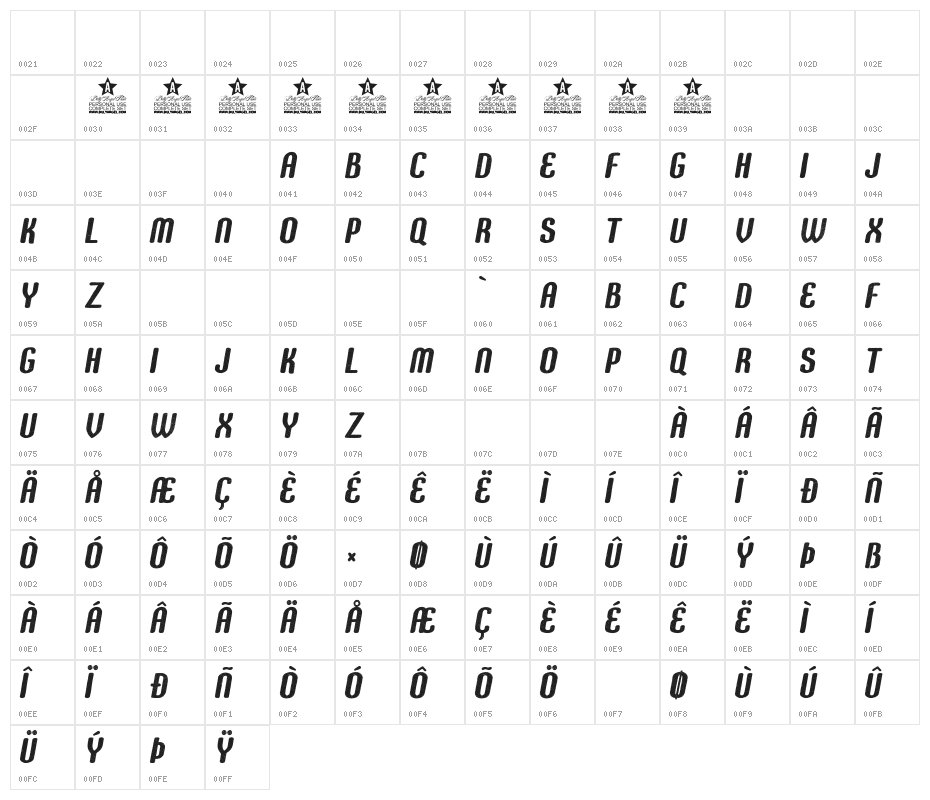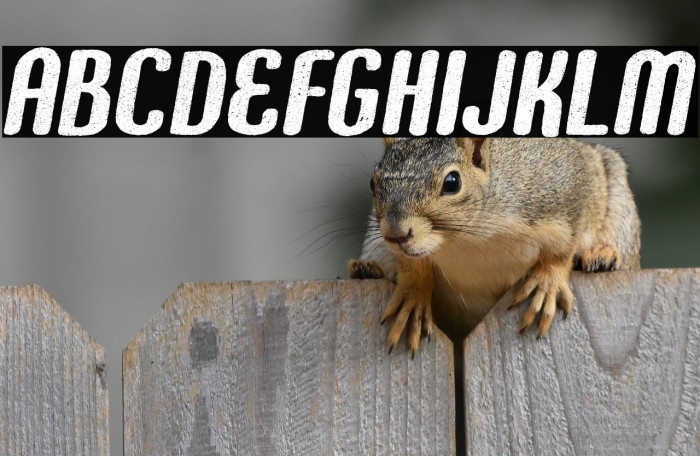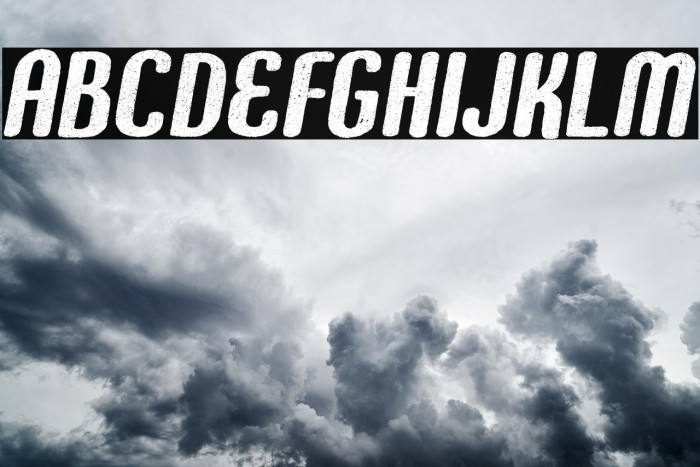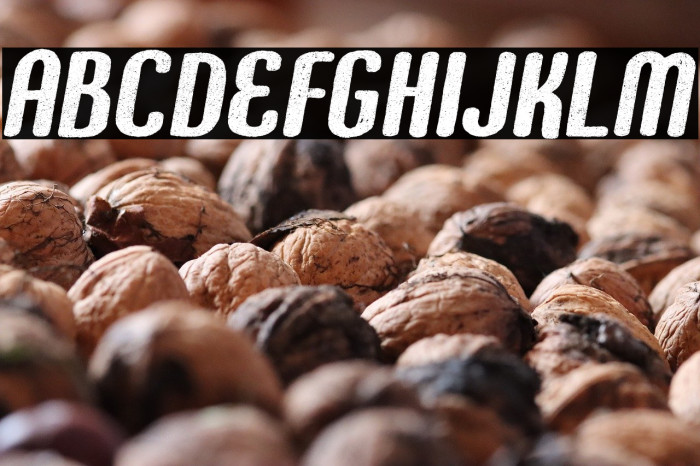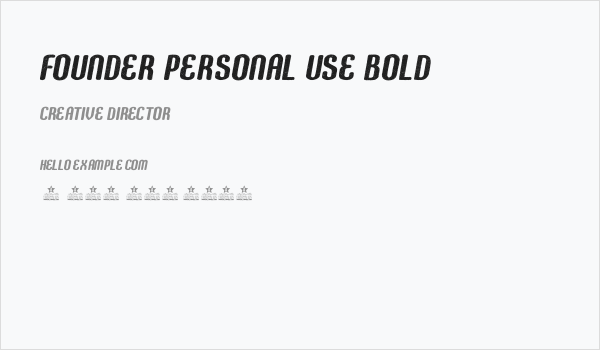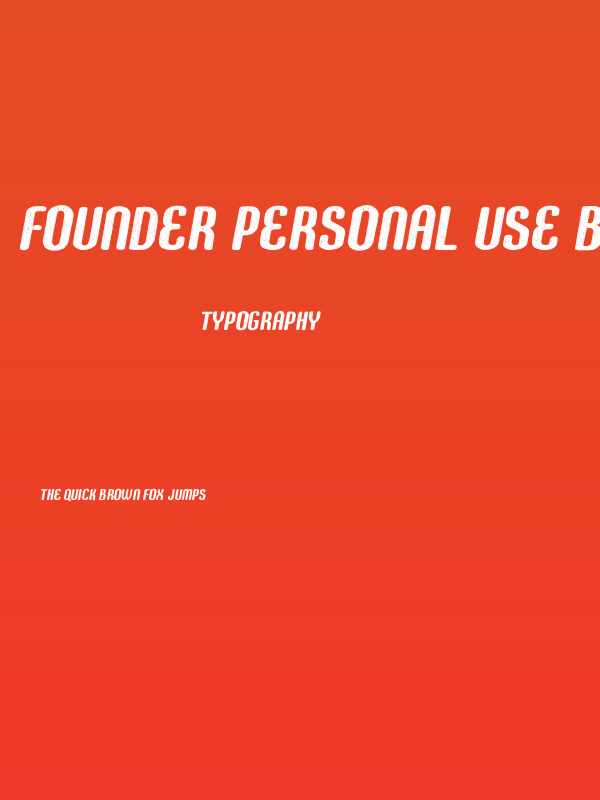
FOUNDER PERSONAL USE Bold Font
FOUNDER PERSONAL USE Bold Description
This bold, decorative font features a distressed texture that gives it a vintage, worn appearance. The uppercase letters are designed with a slight slant, adding a dynamic and energetic feel. The strokes are thick and consistent, providing a strong presence. The rounded edges soften the overall look, making it approachable yet impactful. This font is ideal for creating eye-catching headlines or logos that require a retro or rugged aesthetic. Its unique style makes it stand out, perfect for projects that aim to convey a sense of nostalgia or authenticity.
| Proposed Projects | Ideal for vintage-themed posters, logos, branding, and apparel design. |